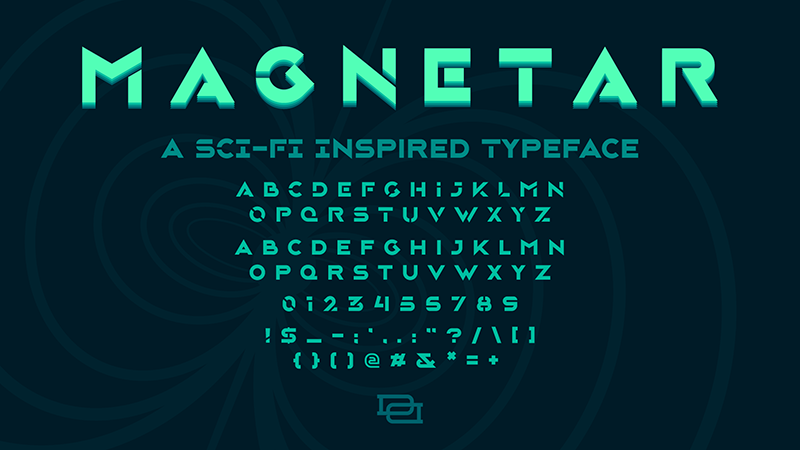
Font name: | Magnetar |
Author: | Zachariah Fleming |
Note by Zachariah Fleming | |
A sci-fi-inspired font with alternates for all capital letters. Latin characters only. |